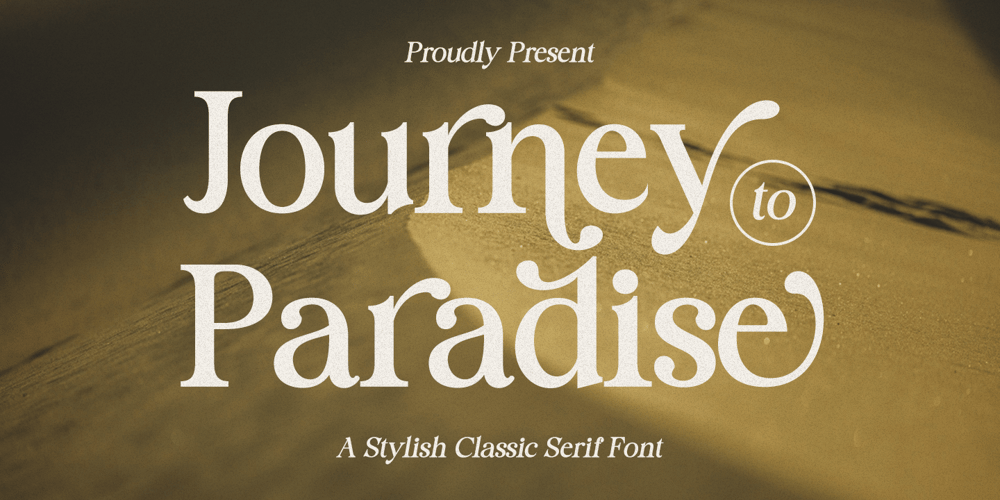
Journey to Paradise Font Family was designed by Hayinah and published by Rockboys Studio. Journey to Paradise contains 1 styles and family package options. Journey to Paradise is an elegant and thin-lettered serif font. It maintains its classy calligraphic influences while feeling contemporary and fresh. Fall in love with it and bring your projects to the highest levels!